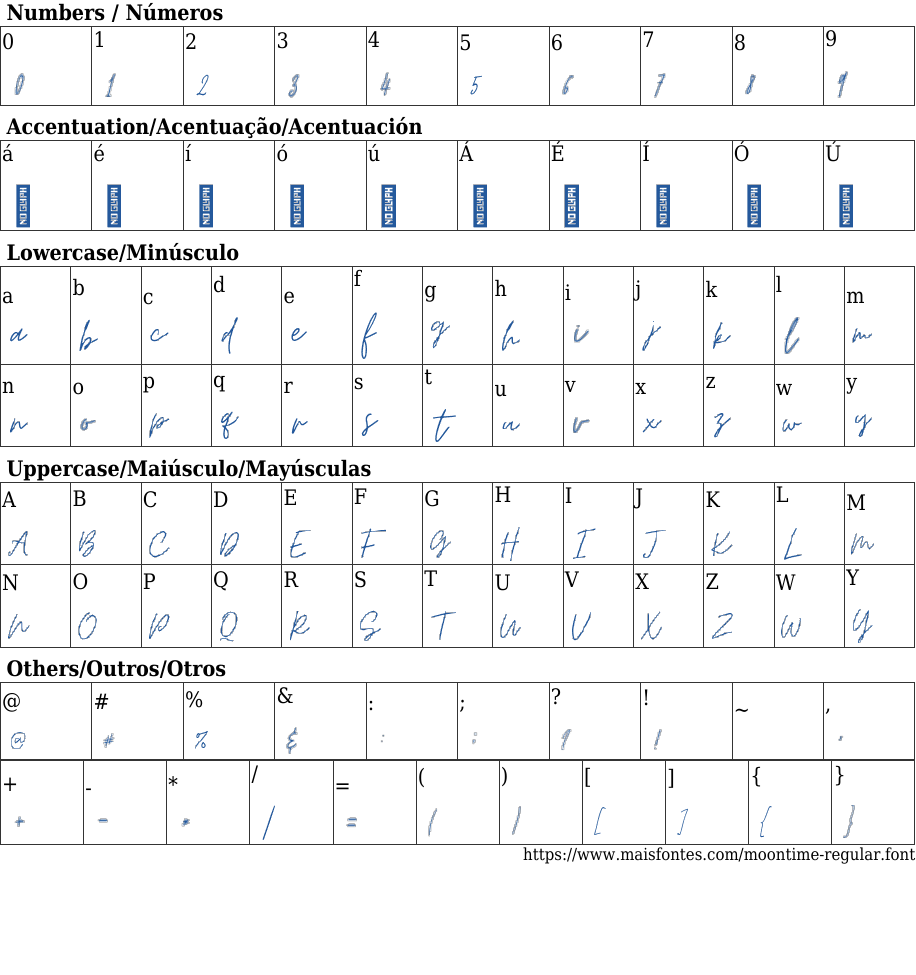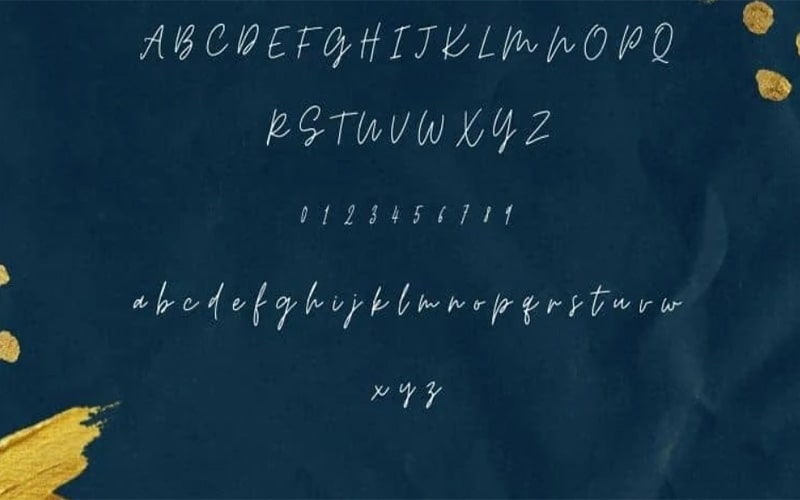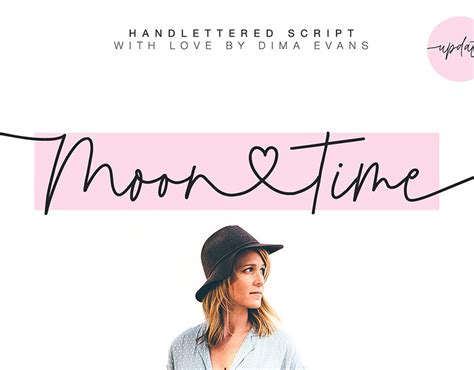
Moontime Regular Font
Moontime Regular Font - Ideal for invitations, greeting cards, personal branding, and social media graphics. Moon time regular is a handwritten script font designed by dmitriychirkov. Moon time regular otf (400) by. Discover the free moon time regular font at free font download ! This modern calligraphy monoline script has been attentively written with gentle curves to produce a font that's completely distinctive and original. Installable on pc, mac, linux, ios, and android platforms. It belongs to the moontime font family and falls under the.
This modern calligraphy monoline script has been attentively written with gentle curves to produce a font that's completely distinctive and original. Moon time regular is a handwritten script font designed by dmitriychirkov. Discover the free moon time regular font at free font download ! Installable on pc, mac, linux, ios, and android platforms. It belongs to the moontime font family and falls under the. Moon time regular otf (400) by. Ideal for invitations, greeting cards, personal branding, and social media graphics.
Ideal for invitations, greeting cards, personal branding, and social media graphics. It belongs to the moontime font family and falls under the. Installable on pc, mac, linux, ios, and android platforms. Discover the free moon time regular font at free font download ! Moon time regular is a handwritten script font designed by dmitriychirkov. Moon time regular otf (400) by. This modern calligraphy monoline script has been attentively written with gentle curves to produce a font that's completely distinctive and original.
Installable on pc, mac, linux, ios, and android platforms. Moon time regular is a handwritten script font designed by dmitriychirkov. Ideal for invitations, greeting cards, personal branding, and social media graphics. Moon time regular otf (400) by. Discover the free moon time regular font at free font download !
Moon time regular otf (400) by. Ideal for invitations, greeting cards, personal branding, and social media graphics. This modern calligraphy monoline script has been attentively written with gentle curves to produce a font that's completely distinctive and original. Moon time regular is a handwritten script font designed by dmitriychirkov. Installable on pc, mac, linux, ios, and android platforms.
Discover the free moon time regular font at free font download ! It belongs to the moontime font family and falls under the. Ideal for invitations, greeting cards, personal branding, and social media graphics. Installable on pc, mac, linux, ios, and android platforms. Moon time regular is a handwritten script font designed by dmitriychirkov.
This modern calligraphy monoline script has been attentively written with gentle curves to produce a font that's completely distinctive and original. Moon time regular is a handwritten script font designed by dmitriychirkov. Ideal for invitations, greeting cards, personal branding, and social media graphics. It belongs to the moontime font family and falls under the. Installable on pc, mac, linux, ios,.
This modern calligraphy monoline script has been attentively written with gentle curves to produce a font that's completely distinctive and original. Ideal for invitations, greeting cards, personal branding, and social media graphics. Moon time regular otf (400) by. Discover the free moon time regular font at free font download ! Moon time regular is a handwritten script font designed by.
Moon time regular otf (400) by. Moon time regular is a handwritten script font designed by dmitriychirkov. Ideal for invitations, greeting cards, personal branding, and social media graphics. Installable on pc, mac, linux, ios, and android platforms. It belongs to the moontime font family and falls under the.
This modern calligraphy monoline script has been attentively written with gentle curves to produce a font that's completely distinctive and original. Ideal for invitations, greeting cards, personal branding, and social media graphics. Moon time regular is a handwritten script font designed by dmitriychirkov. Installable on pc, mac, linux, ios, and android platforms. Moon time regular otf (400) by.
Ideal for invitations, greeting cards, personal branding, and social media graphics. Discover the free moon time regular font at free font download ! This modern calligraphy monoline script has been attentively written with gentle curves to produce a font that's completely distinctive and original. Moon time regular is a handwritten script font designed by dmitriychirkov. Moon time regular otf (400).
Moon time regular otf (400) by. Moon time regular is a handwritten script font designed by dmitriychirkov. Discover the free moon time regular font at free font download ! It belongs to the moontime font family and falls under the. Ideal for invitations, greeting cards, personal branding, and social media graphics.
Moon Time Regular Is A Handwritten Script Font Designed By Dmitriychirkov.
Moon time regular otf (400) by. This modern calligraphy monoline script has been attentively written with gentle curves to produce a font that's completely distinctive and original. Ideal for invitations, greeting cards, personal branding, and social media graphics. Discover the free moon time regular font at free font download !
It Belongs To The Moontime Font Family And Falls Under The.